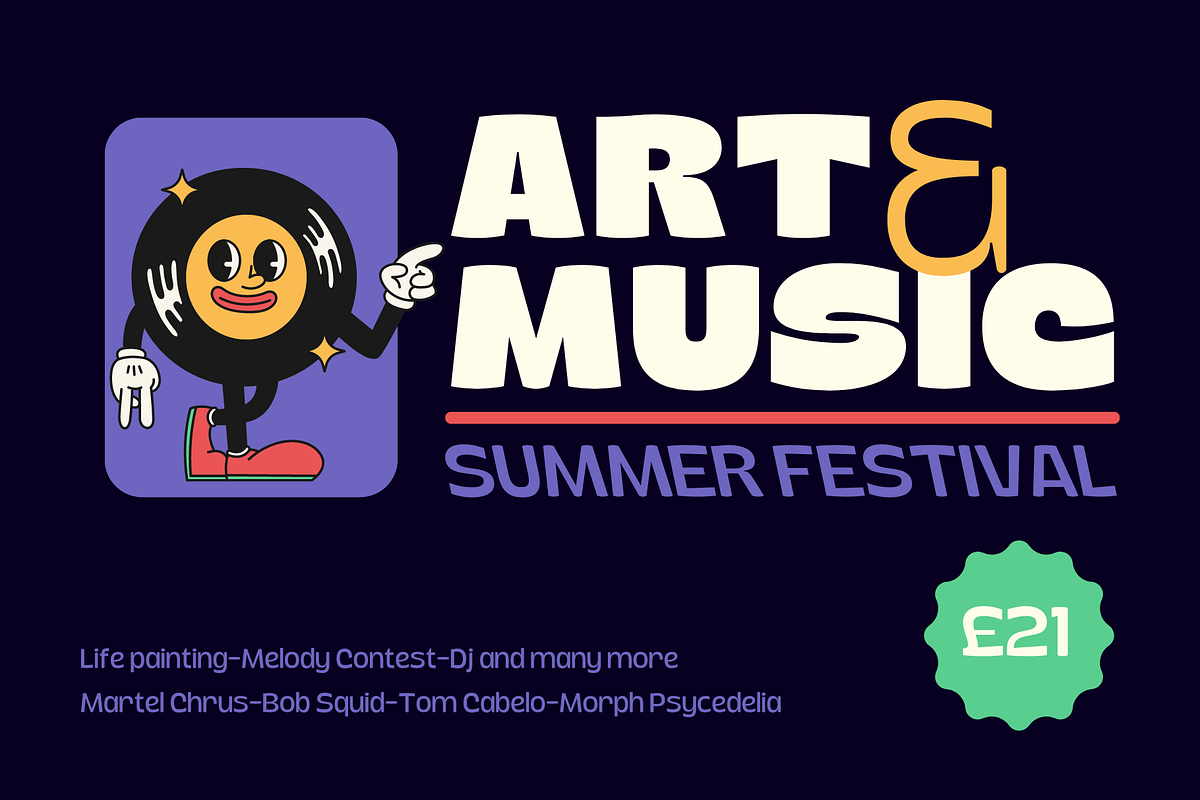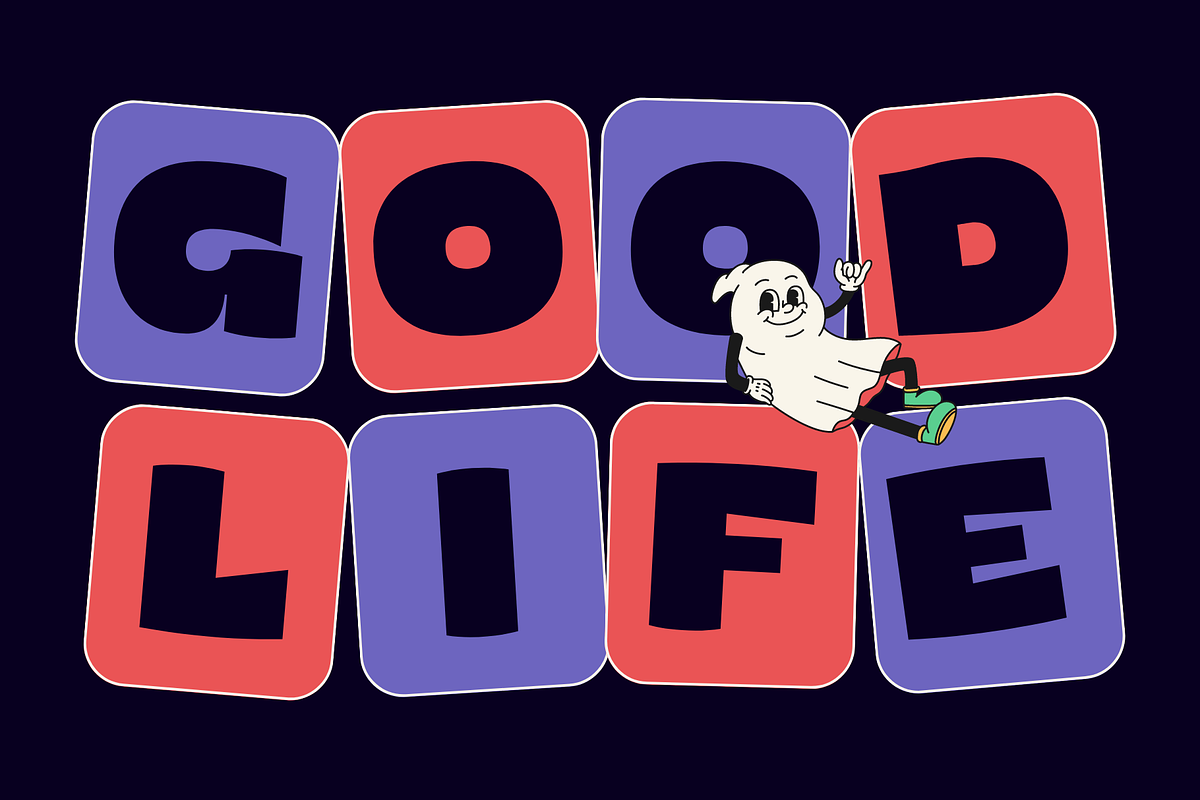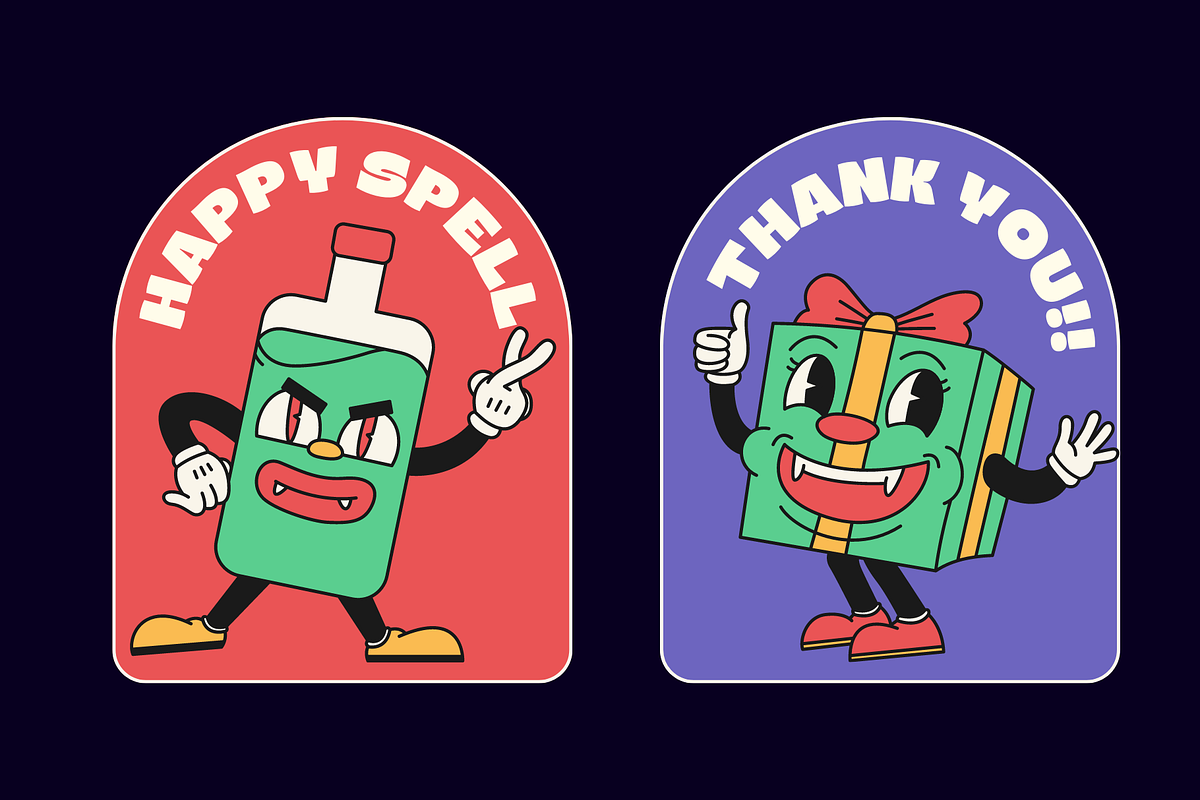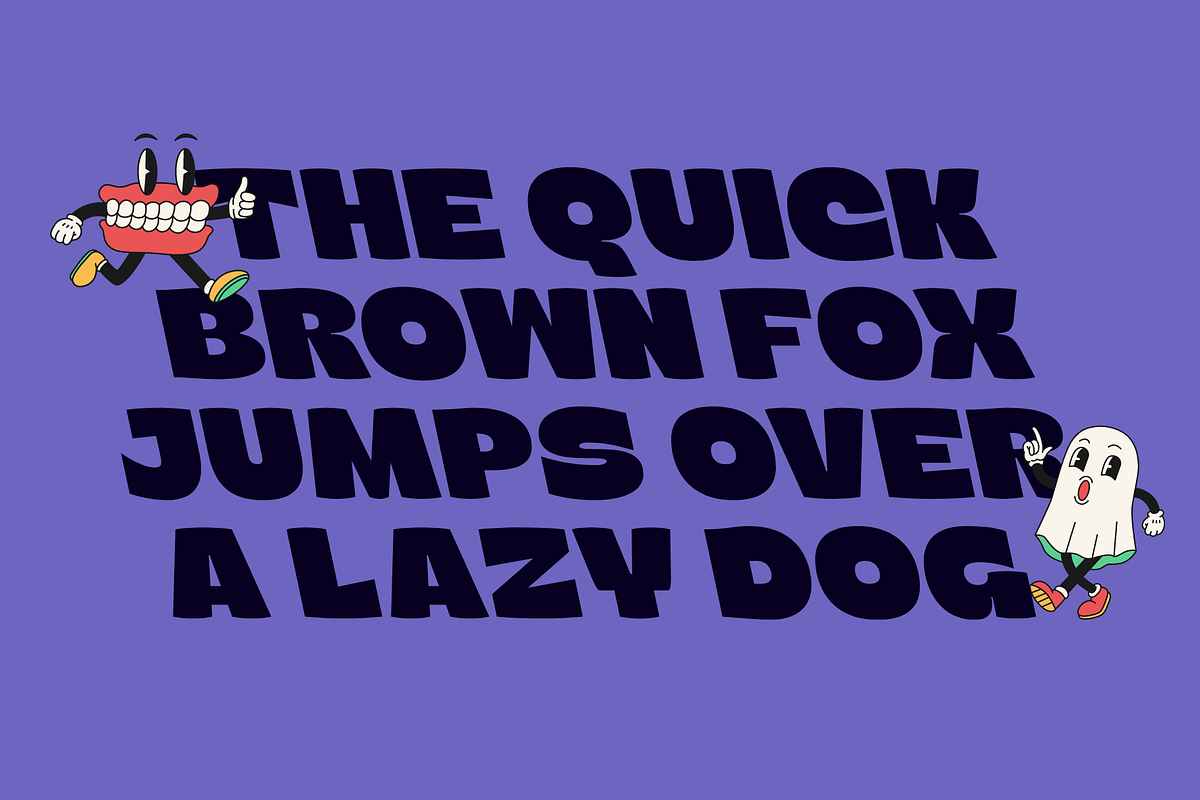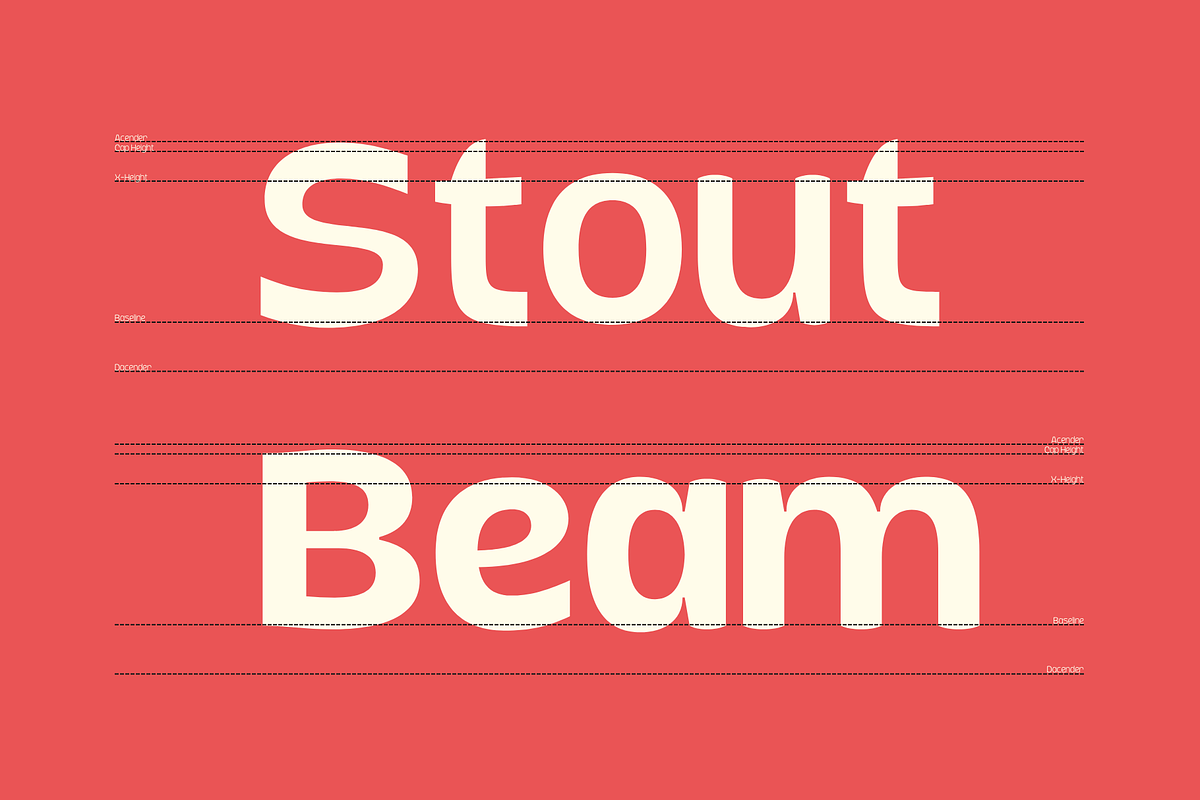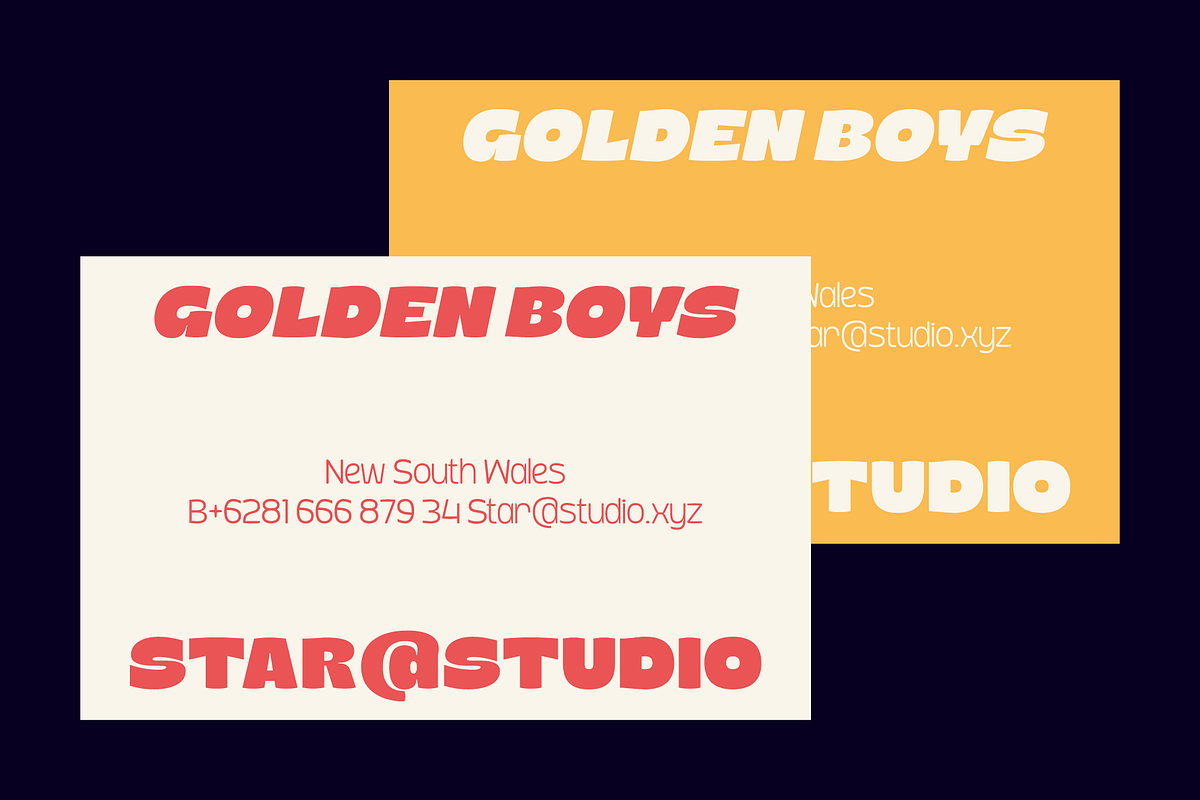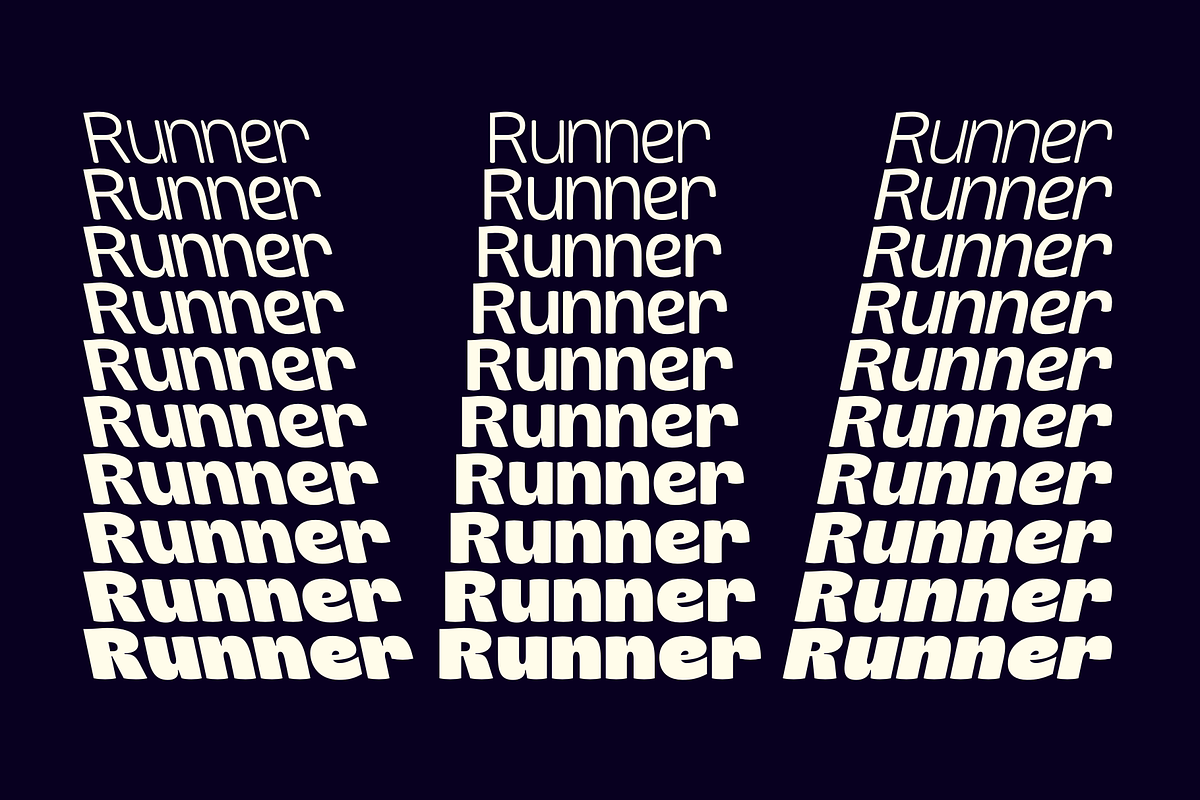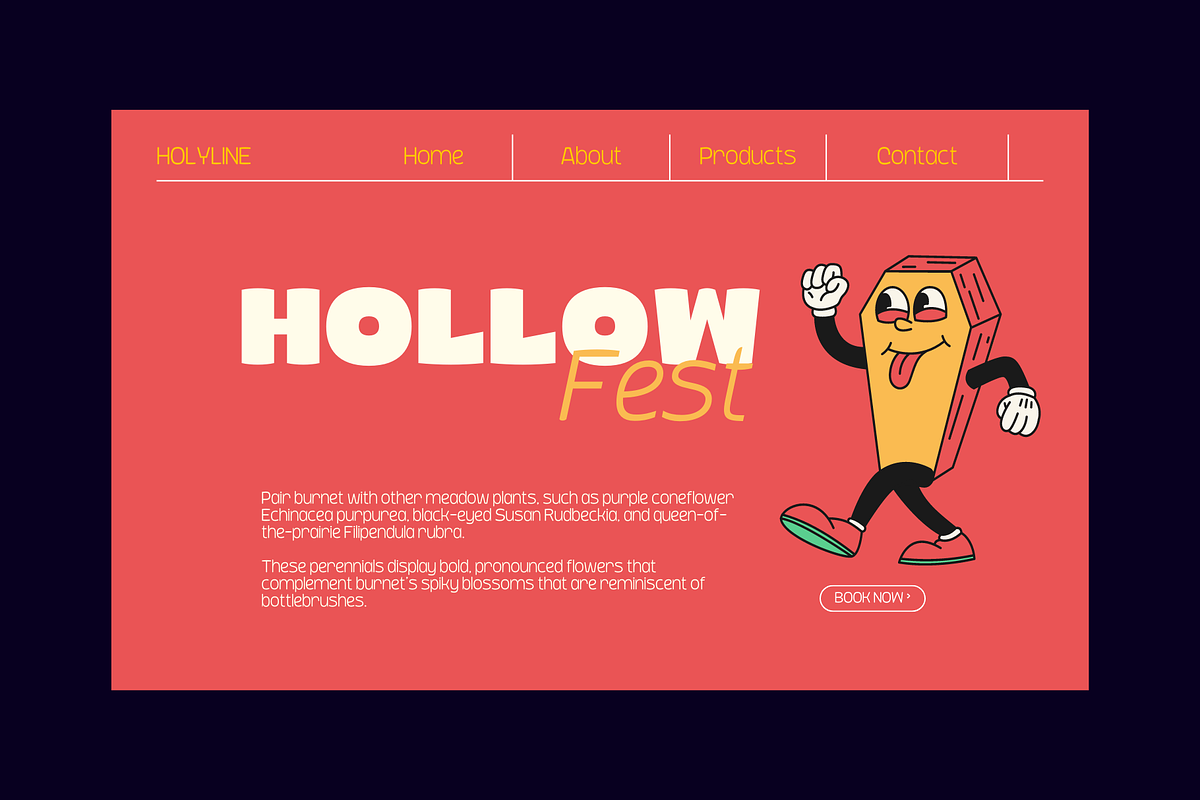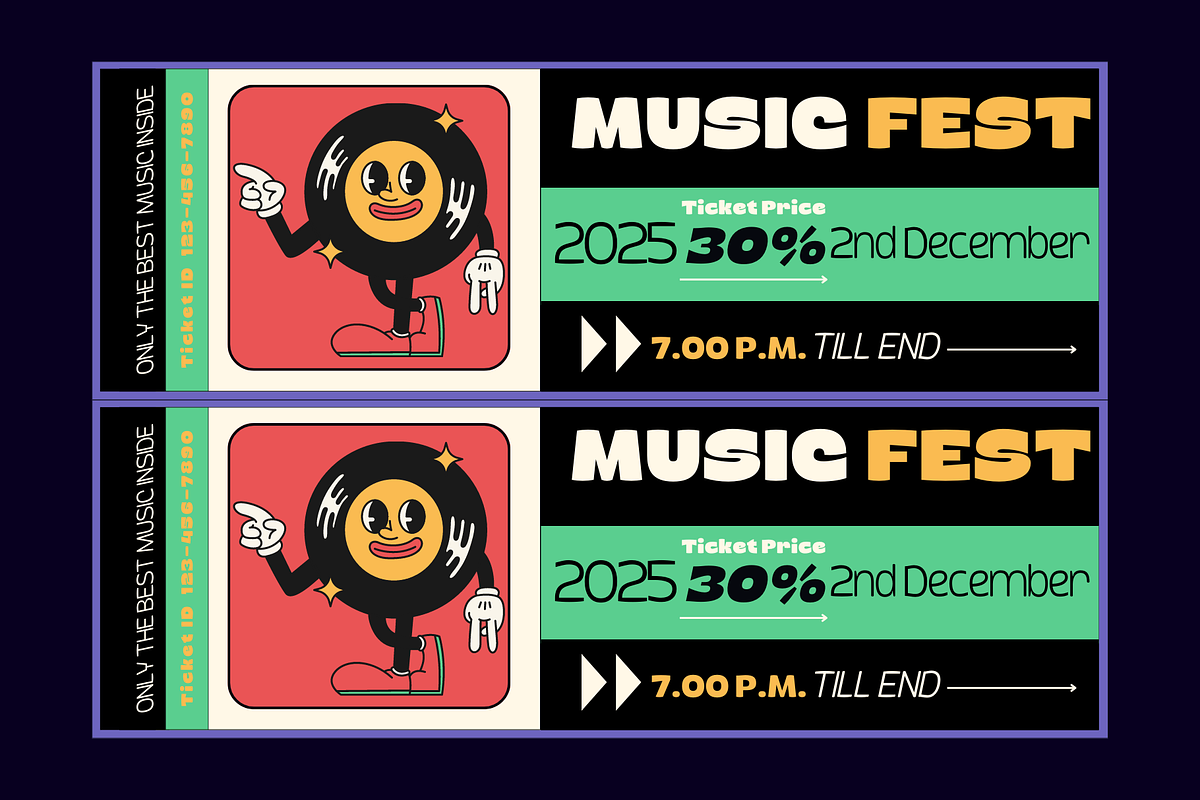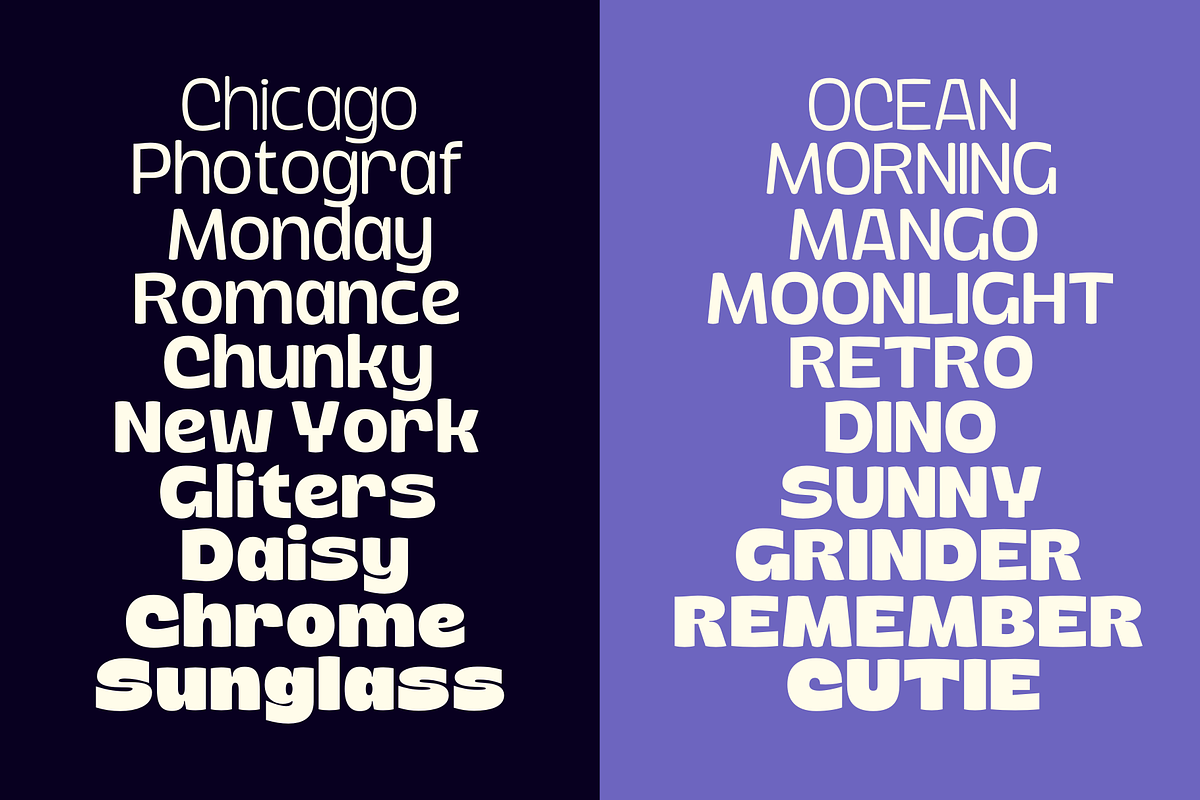
Sun Plumps Font Family
Sun Plumps is friendly and playfull sans serif family. This font comes in 10 weight with Slanted and Reslanted , there are a total 30 fonts and support variable font. This font is great for display projects such as posters, stickers, packaging and branding. Get the all style and play with the all style!